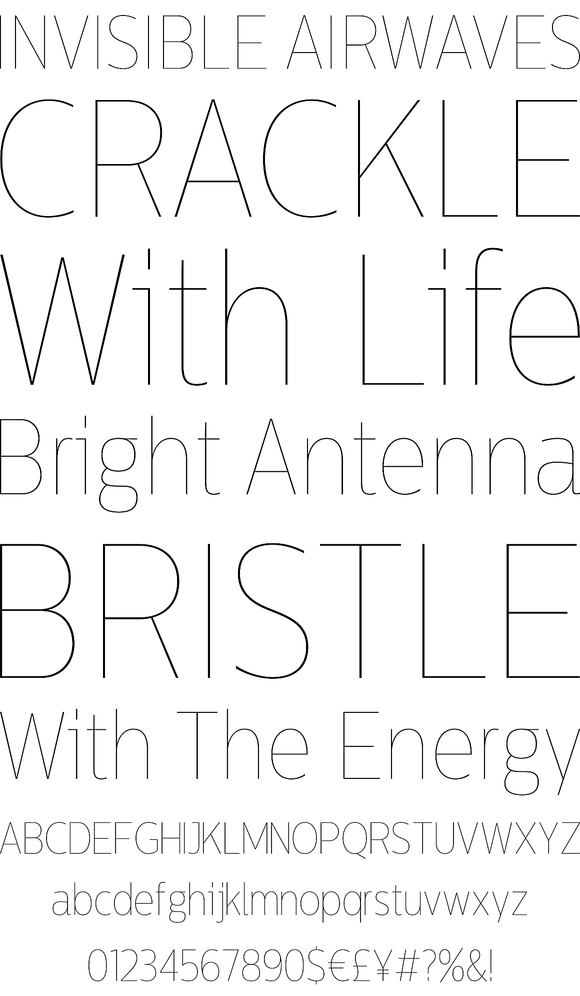
Centrale Sans Condensed
Centrale Sans Condensed is not just a "squished" version of our Centrale Sans family, it's designed as a stand alone typeface with the family characteristics in mind. It bears all the qualities of the normal width being even friendlier because of the closer relation it has with the humanist model.
The condensed width is with 15% narrower than its normal sibling, which makes it precious space-saving tool. Centrale Sans Condensed also have 9 weights from Hairline to Extra Bold plus their matching italics. It includes Some OpenType features like discretional ligatures, tabular figures and stylistic alternatives.